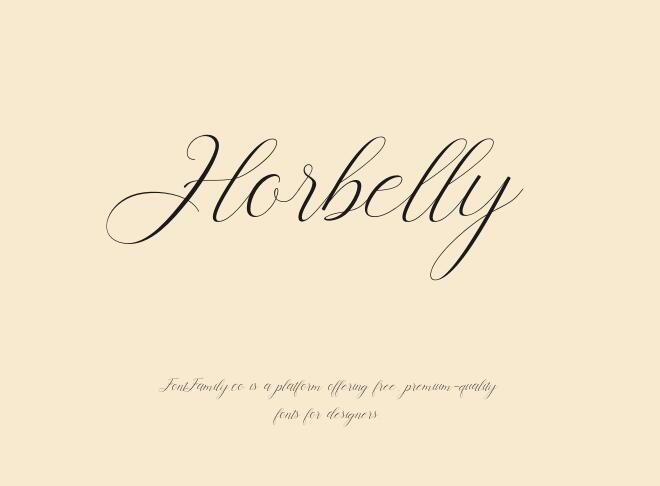
Horbelly Font
Horbelly Font is a modern handwritten typeface that effortlessly combines playful and contemporary aesthetics. Designed by Creative Fabrica Fonts, it brings a unique, friendly vibe to any design project, making it an ideal choice for logos, packaging, social media graphics, and more. With its quirky, irregular characters, Horbelly Font stands out from the crowd, offering a fresh alternative to more traditional handwritten fonts. Its dynamic, yet readable style makes it a versatile asset for any designer, and its commercial license allows its use across a wide range of professional projects. With Horbelly Font, your designs will not only look modern and stylish, but also convey a sense of joy and creativity.